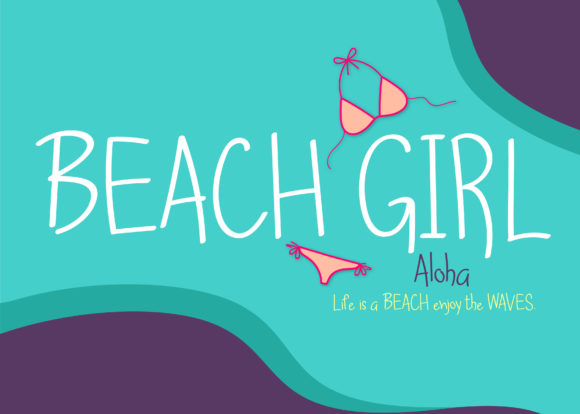
Dive into the sun-kissed beauty of Beach Girl Font, a captivating script that will instantly transport your designs to a blissful seaside paradise. Crafted by the renowned BB Type Studios, this font captures the carefree essence of summer with its loose, flowing lines and enchanting charm.
Whether you're creating stunning book covers that evoke the salty tang of sea air or crafting whimsical posters that celebrate the joy of endless summer days, Beach Girl Font will effortlessly elevate your designs to new heights. Its warm and inviting aesthetic will caress the hearts of your readers, drawing them into the pages of your creations with an irresistible magnetic pull.
Imagine the possibilities: book covers that whisper tales of mermaid adventures and salty love stories, greeting cards that carry heartfelt messages with a touch of seaside serenity, and social media posts that capture the breathtaking beauty of a sunset over the ocean. With every stroke of Beach Girl Font, you'll paint a picture that captivates the senses and transports your audience to a world of summertime bliss.
But it's not just about the aesthetic appeal. This font is a true workhorse, offering unwavering legibility even at smaller sizes. Whether you're crafting captivating headlines or weaving intricate paragraphs, Beach Girl Font will ensure that your words are as easy on the eyes as they are on the heart.
Don't settle for ordinary fonts that blend into the background. Embrace the allure of Beach Girl Font and watch your designs transform into breathtaking masterpieces. Let its seaside charm infuse your creations with a touch of magic and create a lasting impression that will linger in the hearts of your audience long after they've turned the page.